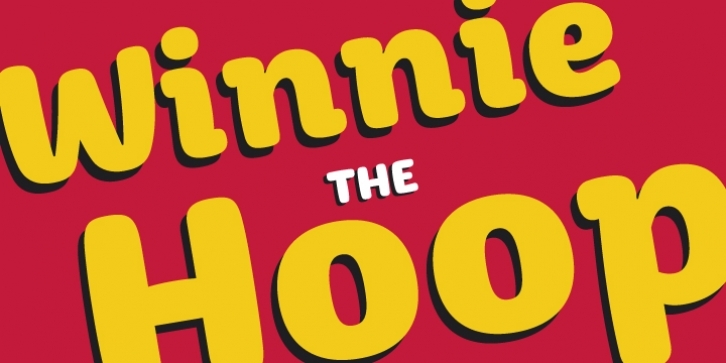
Winnie the Hoop is the debut release of Teo Tuominen, a Finnish type and graphic designer. The typeface is inspired by a certain well-known teddy bear. Winnie the Hoop is above all happy and meant to be used in happy publications as well. Using this font to communicate a sad or grave message is not recommended.
Winnie the Hoop is a combination of chubby sans-serif capitals and semi-slab lowercase. This feature makes text set in capitals easy to read and ads some useful contrast between capitals and the slightly quirky lowercase letters.
Winnie the Hoop is best suited for large sizes, headlines, posters, and advertisements (as long as they're happy!).